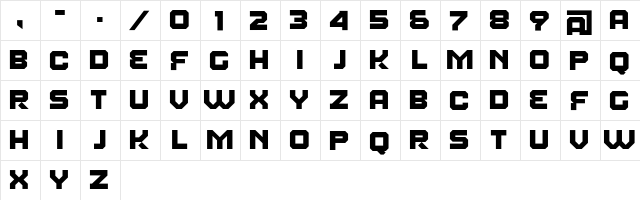
INDFAITH Regular
Design Context for INDFAITH Typeface
INDFAITH takes a measured approach to typography — its balanced proportions and neutral character make it a reliable workhorse for both digital and print work.